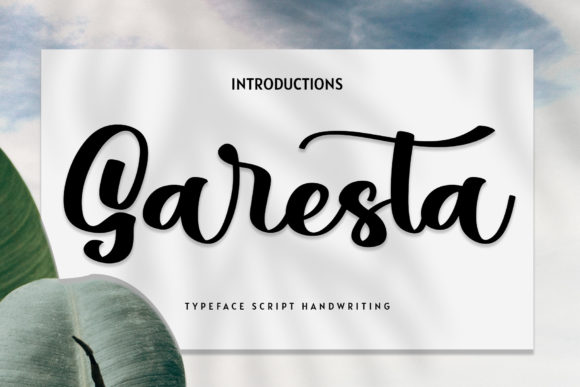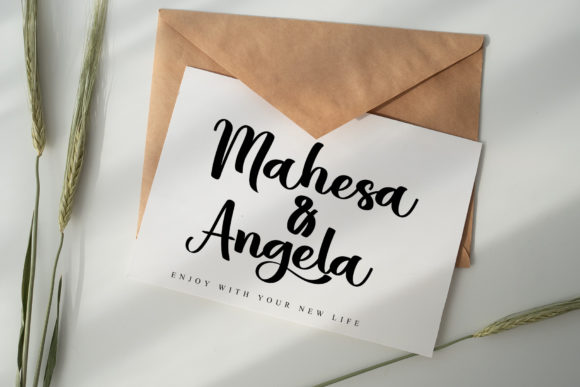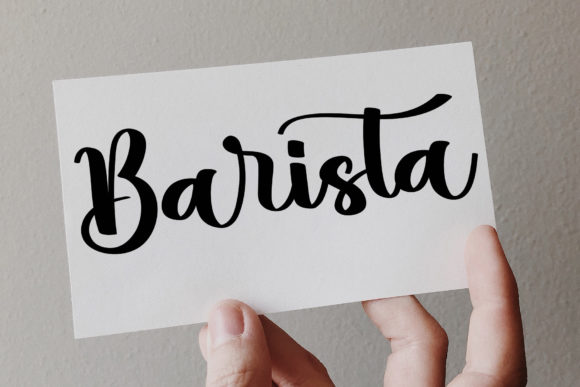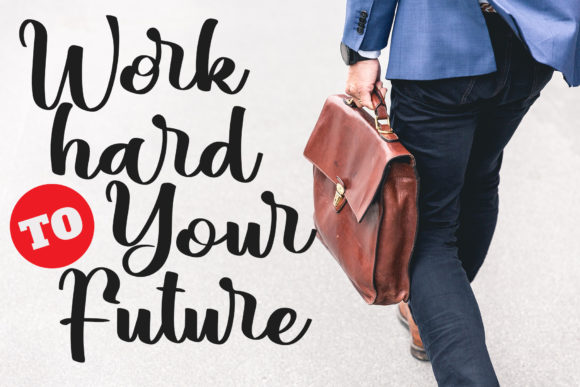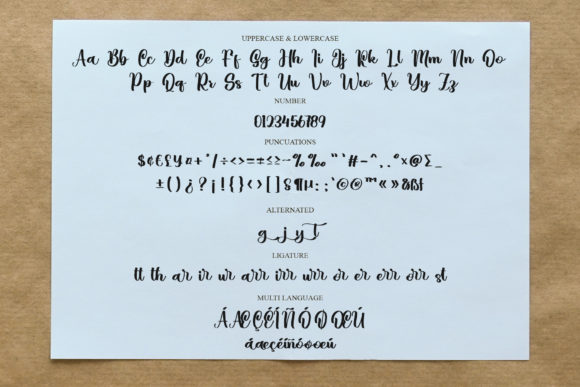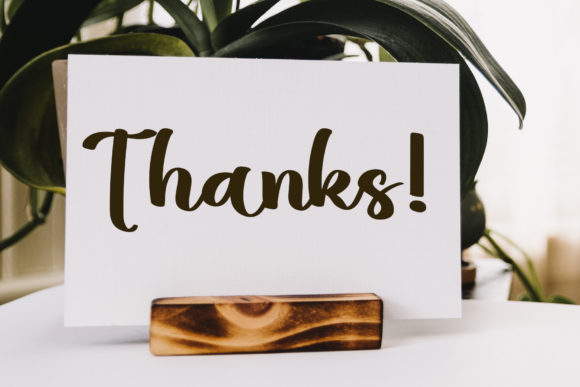
Garesta Font
About Garesta Font
Garesta is a beautiful and whimsical script font. It is defined by smooth curves and is perfect for fashion branding or editorial designs. Add it confidently to your projects, and you will love the results.